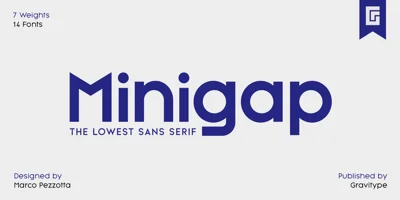
Minigap Font
Minigap Font is perfect for minimalist logo designs, compact mobile interfaces, efficient data displays, space-saving packaging labels, condensed magazine layouts, streamlined app typography, tight headline compositions, and efficient corporate communications. This space-conscious typeface excels in constrained design environments, compact applications, and any project requiring maximum readability within minimal space that optimizes every pixel through intelligent typographic efficiency.
What makes Minigap Font exciting is its remarkable ability to maximize readability and visual impact within extremely limited space through precisely engineered letterforms that eliminate unnecessary elements while maintaining perfect clarity. The font features compactly designed characters with optimized spacing and efficient proportions that deliver maximum communication value per square inch, making it ideal for brands seeking to establish clear messaging in space-restricted environments and communicate through economical visual language. Its efficient presence ensures immediate recognition of smart design and space optimization.
Minigap Font family includes multiple weights and styles: Regular, Bold, Light, Medium, Italic variations, and ultra-condensed versions for maximum space efficiency applications. Each family member maintains the distinctive compact character while offering comprehensive typography solutions for space-conscious campaigns, from tight informational text to condensed headlines that establish clear communication and efficient messaging through intelligently compressed typography.
Whether you're designing space-efficient interfaces or creating compact marketing materials, Minigap Font provides the perfect typography solution for space-optimization branding needs. This font transforms ordinary text into efficiently compressed communications that maximize impact within minimal space constraints. Tech companies and space-conscious brands choose this typeface for its ability to convey clear messaging through precisely crafted letterforms that make every pixel count and celebrate the elegant beauty of typographic efficiency.